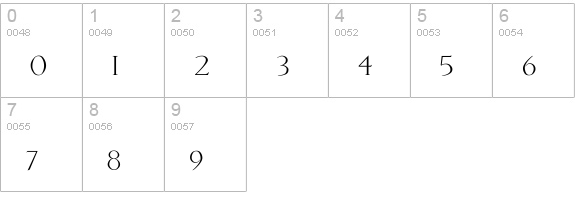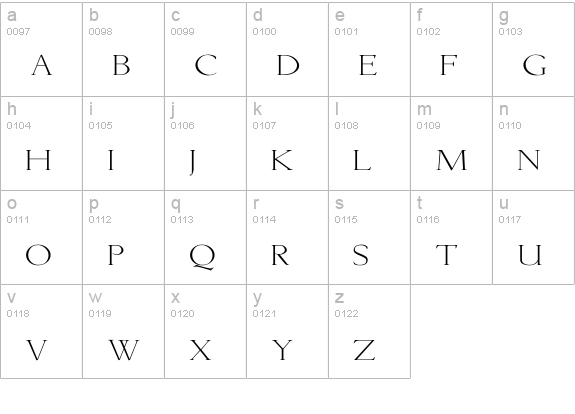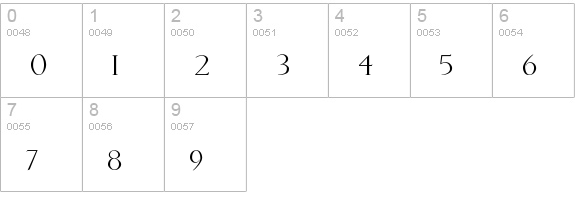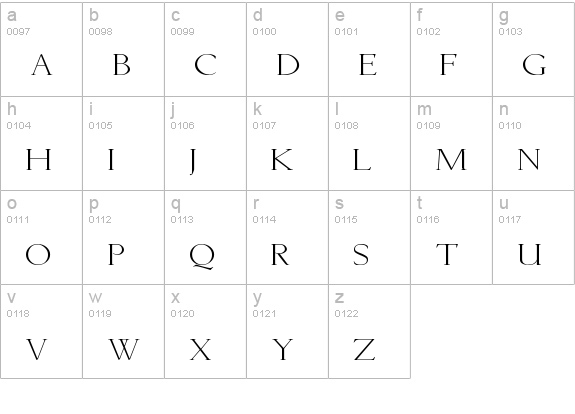
Lichtner Wd Font Details
Lichtner Wd is a stunning display font that exudes elegance and sophistication. With its unique and eye-catching design, this font is perfect for adding a touch of luxury to any project. The sleek and modern lines of Lichtner Wd make it ideal for branding, logos, headlines, and more. What's even better is that Lichtner Wd is completely free to download! You can get your hands on this beautiful font at FontsMarket.com and start using it in your designs right away. Don't miss out on the opportunity to enhance your projects with the timeless beauty of Lichtner Wd - download it now and elevate your designs to the next level!